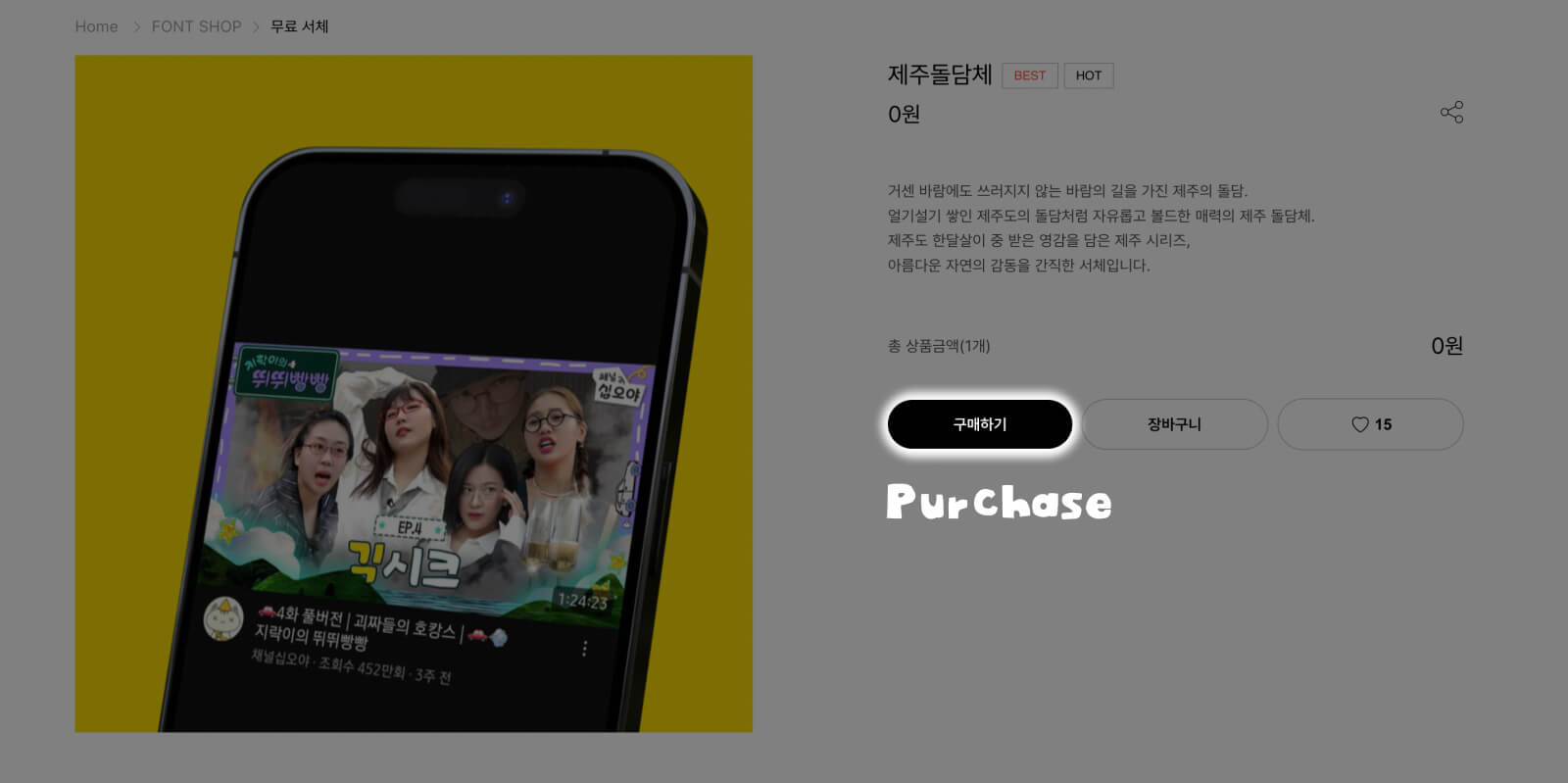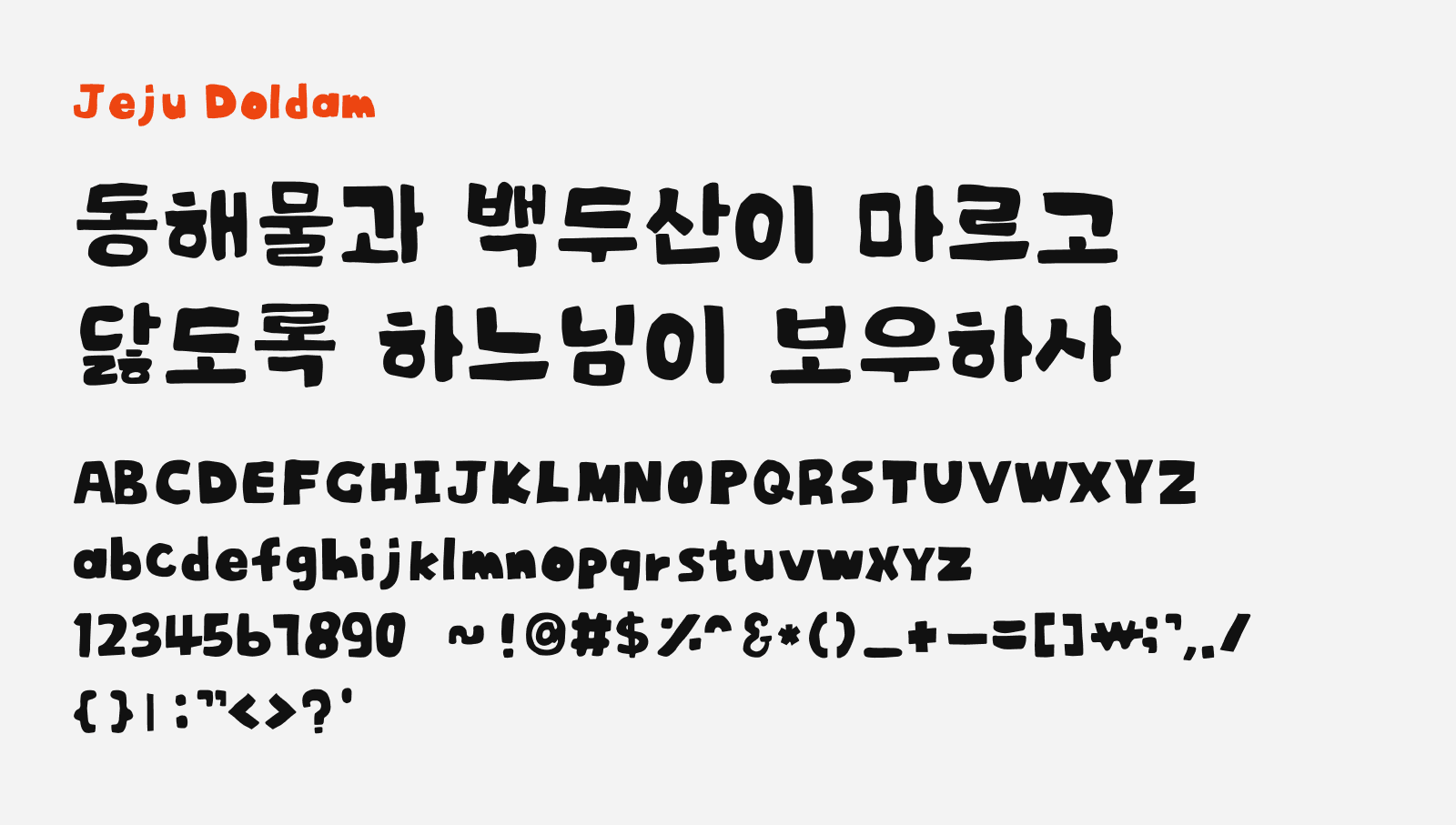
Jeju Doldam
Jeju Doldam (제주돌담체) is a free Korean display font developed and released by EarlyFont. The name literally translate to “Jeju Stone Wall Font”, drawing its inspiration directly from the iconic dry-stone walls (basically the word “doldam”) of Jeju Island – the rugged, loosely-stacked volcanic rock walls that crisscross the island’s landscape and are famous for their wind-channeling gaps that allow fierce ocean gusts to pass through without toppling them. The designer, Abby H. drew inspiration when staying on Jeju Island for a month, designed this font that embodies the bold, rugged and slightly irregular aesthetic, just like the stone wall itself.
With its irregular shapes and thickness of the letters, it gives a sense of raw and organic nature, imperfect yet full of character. Besides that, it gives a sense of hand-drawn feel as well. This makes this font a great choice for eye-catchy display titles, posters, brand assets and more. It supports both Korean and Latin script, and you can download this font for free and be used on commercial projects.